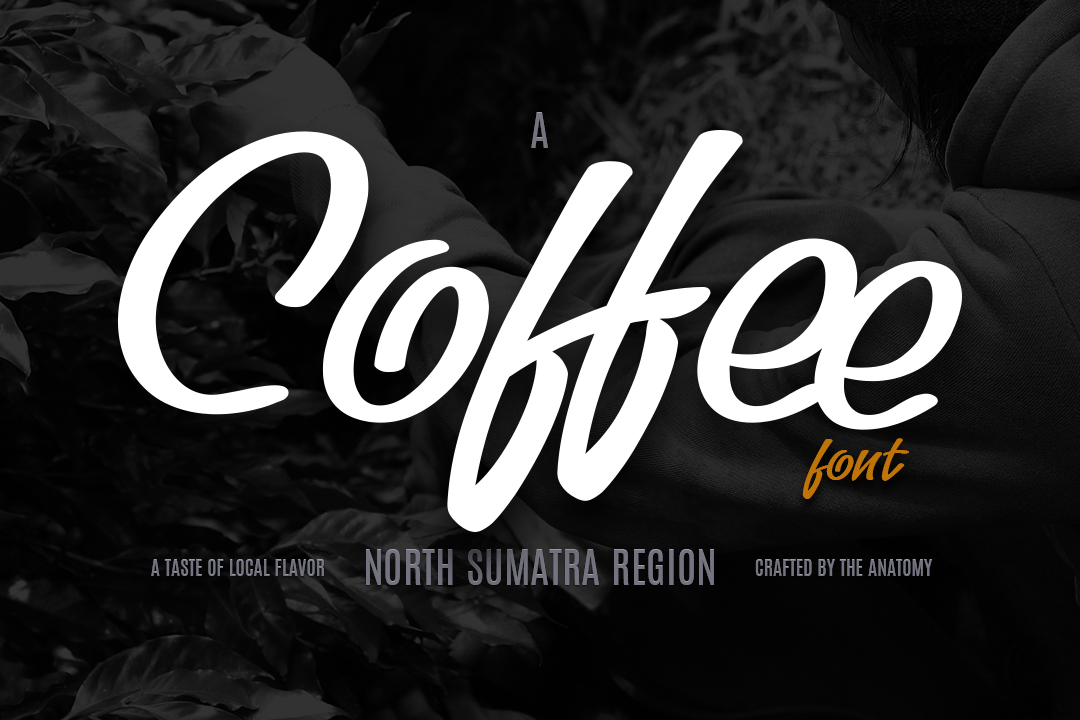
Coffee Script
From love into a fontface.
Font with the taste of coffee.
Made from coffee plant anatomy at local farmer.
Arabica Variety.
Dokan, Region Karo - North Sumatra.
Indonesia.